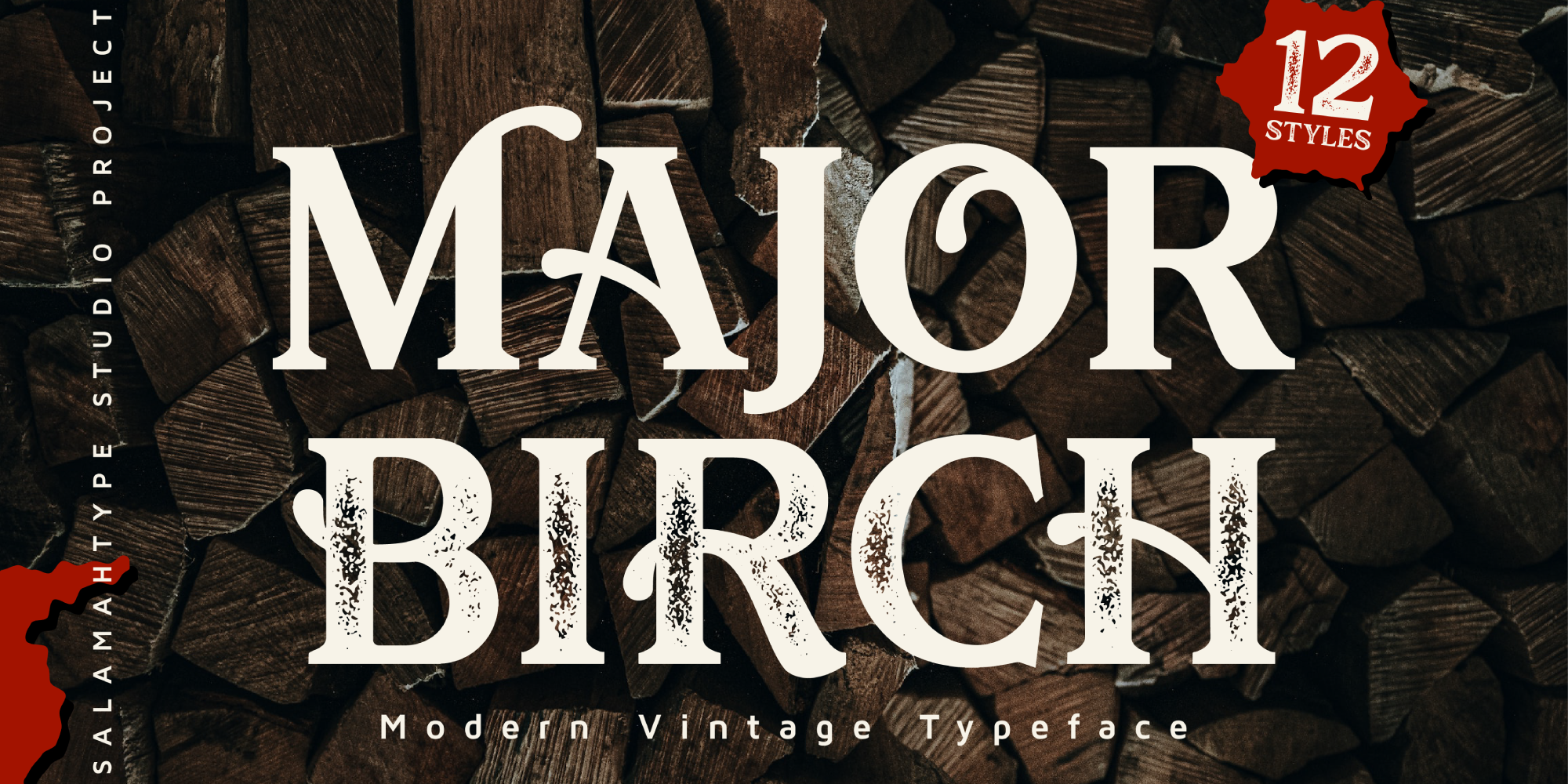
Major Birch Font is perfect for national park signage, outdoor adventure branding, forest conservation campaigns, wilderness lodge marketing, camping equipment packaging, nature documentary titles, environmental organization logos, rustic cabin resort promotions, hiking trail guidebooks, and outdoor recreation company identities. Its natural woodland character makes it ideal for projects requiring authentic forest appeal and outdoor adventure authenticity.
What makes Major Birch Font exciting is its organic capture of forest wilderness and natural beauty with textured letterforms and woodland-inspired characteristics that transport viewers to pristine forest environments and outdoor adventure experiences. The font features bark-like textures, organic stroke variations, and natural character details that create authentic woodland atmosphere and environmental appeal. Its earthy personality brings connection to nature and outdoor authenticity to contemporary designs while maintaining the readability essential for wayfinding and outdoor communication applications. The carefully crafted natural elements ensure visual character while preserving the distinctive appeal that embodies the essence of forest conservation and outdoor adventure excellence.
Major Birch Font comes in multiple natural variations including Regular, Bold, Light, Textured, and Weathered styles. Each family member enhances the distinctive woodland character while offering different levels of natural authenticity and outdoor appeal. The complete font family includes alternate characters, nature symbols, and organic decorative elements that provide comprehensive tools for creating immersive outdoor design experiences and authentic environmental brand storytelling.
Whether you're developing outdoor brands, environmental initiatives, or nature-focused projects, Major Birch Font Free Download provides the authentic woodland character needed to connect with outdoor enthusiasts and nature lovers who appreciate environmental conservation and wilderness experiences. The font's natural appeal resonates with hikers, campers, and environmental advocates seeking genuine outdoor credibility and forest authenticity. Its comprehensive character set includes nature symbols and outdoor marks, making it perfect for creating complete wilderness brand systems and memorable environmental storytelling across diverse outdoor applications and nature-inspired design projects that celebrate forest conservation and outdoor adventure excellence.